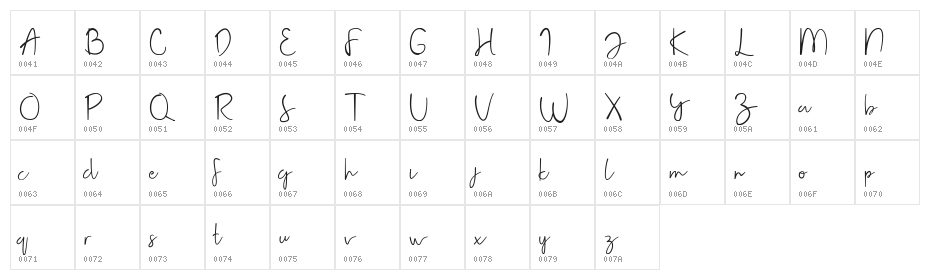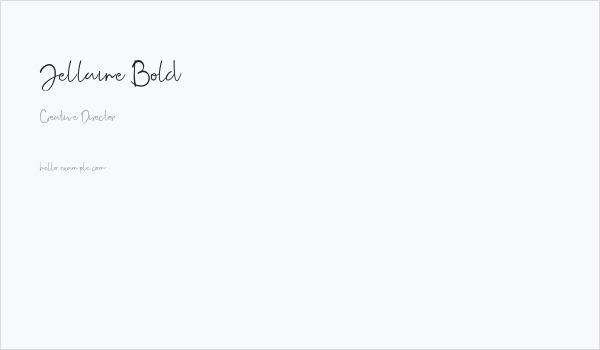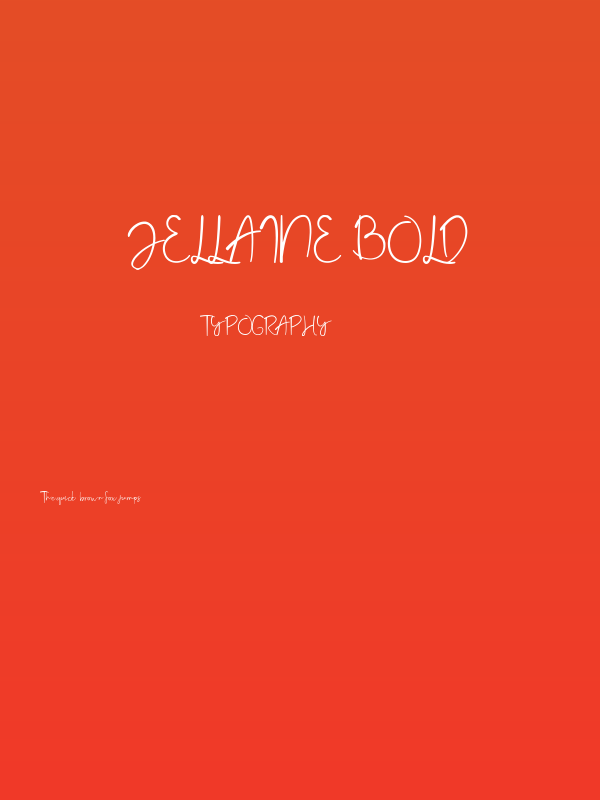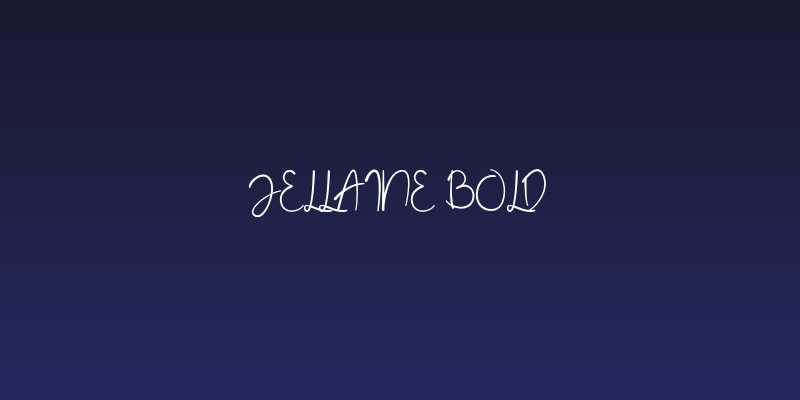
Jellaine-Bold Font
Jellaine-Bold Description
This font features a playful and whimsical handwritten style, characterized by its flowing, cursive-like strokes. The letters exhibit a casual elegance with a slight slant, giving it a dynamic and lively appearance. The uppercase and lowercase letters maintain a consistent style, with smooth curves and loops that enhance its handwritten charm. The font's unique personality is further emphasized by its slightly irregular baseline, adding to its organic feel. It's perfect for projects that require a personal touch, such as invitations, greeting cards, or branding materials that aim to convey warmth and approachability.
| Proposed Projects | Ideal for invitations, greeting cards, personal branding, and creative projects needing a personal touch. |